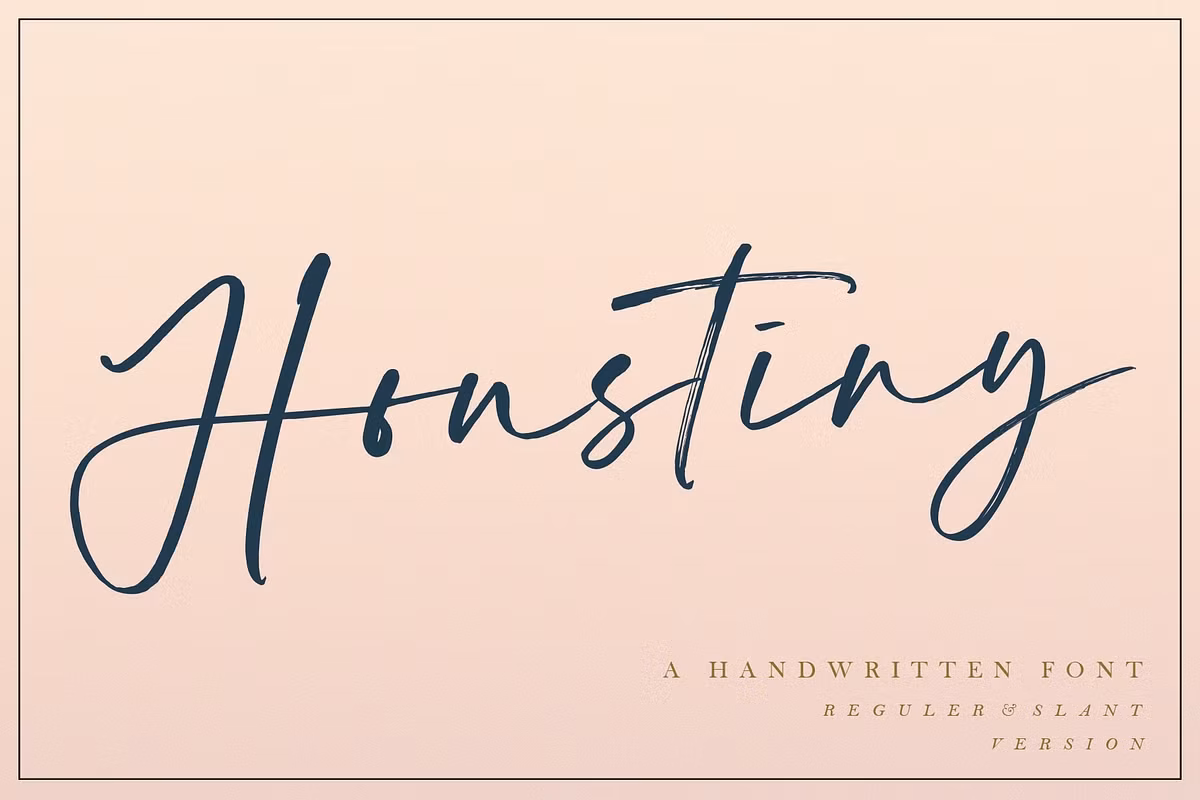
Houstiny – Handwritten Font Free Download is a graceful and expressive script typeface that mimics the natural flow of elegant handwriting. Perfect for wedding invitations, personal branding, logos, and social media posts, this font adds a romantic and personal touch to any project.
With its smooth curves and authentic handwritten style, Houstiny – Handwritten Font Free Download brings warmth and charm to your designs. Whether you're working on a boutique brand, a heartfelt message, or a feminine product line, Houstiny delivers style and emotion in every letter. Try it out in your next design and see how it enhances your visuals—then upgrade to a commercial license when you're ready to launch.